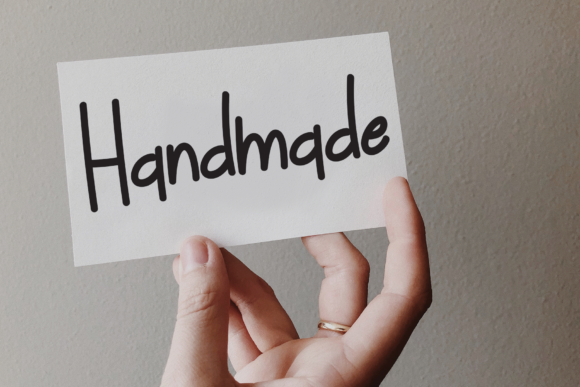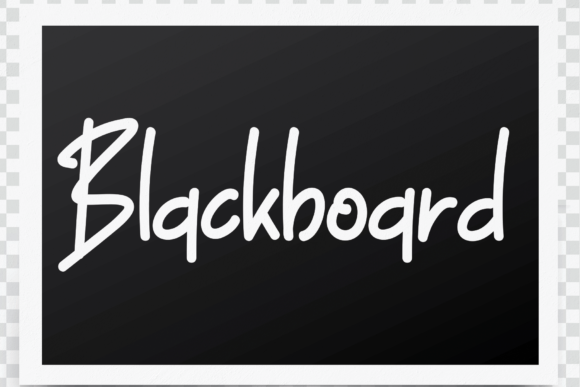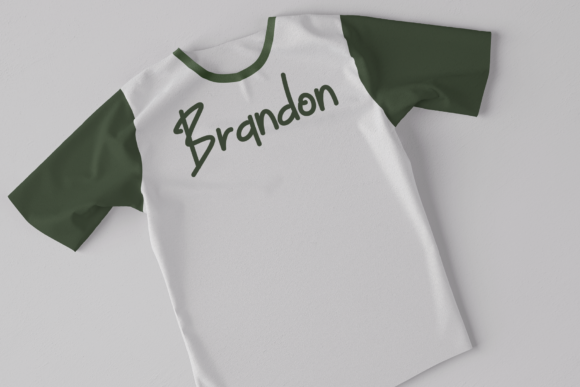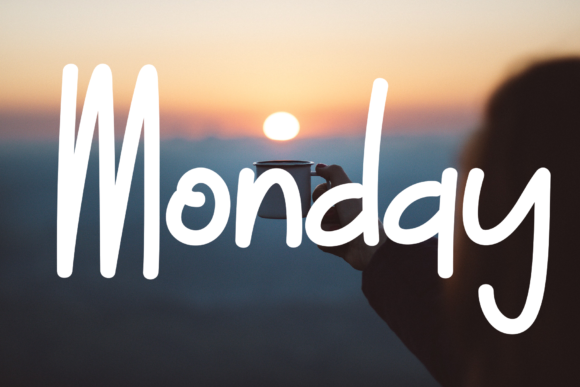
Introducing Bluebird Font: Elevate Your Designs with a Touch of Elegance
Are you on the hunt for a font that exudes elegance, uniqueness, and adaptability? Look no further than the Bluebird Font. This casual, yet sophisticated handwritten font is perfect for designers and crafters seeking to add a personal touch to their projects. In this article, we’ll dive into the world of Bluebird Font, exploring its features, uses, and benefits.
What is Bluebird Font?
Bluebird Font is a beautifully crafted handwritten font, designed to bring a touch of whimsy and charm to your designs. Its casual and unique style makes it an excellent choice for a wide range of projects, from wedding invitations and business cards to greeting cards, social media posts, and wall art.
Key Features of Bluebird Font
- Handwritten elegance: Bluebird Font boasts a beautiful, handwritten style that adds a personal touch to any design.
- Adaptable: This font is versatile and can be used for various projects, from formal events to casual social media posts.
- Unique: The Bluebird Font’s distinct style sets it apart from other fonts, ensuring your designs stand out.
- Elegant: The font’s elegant feel makes it perfect for designs that require a touch of sophistication.
Uses of Bluebird Font
The Bluebird Font’s versatility makes it an excellent choice for a wide range of projects, including:
- Wedding invitations: Add a touch of elegance and romance to your wedding invitations with Bluebird Font.
- Business cards: Create professional and stylish business cards that showcase your brand’s personality.
- Greeting cards: Design beautiful and heartfelt greeting cards for special occasions.
- Social media posts: Elevate your social media presence with eye-catching posts that feature the Bluebird Font.
- Wall art: Create stunning wall art pieces that add a personal touch to any room.
Benefits of Using Bluebird Font
By incorporating Bluebird Font into your designs, you’ll enjoy several benefits, including:
- Enhanced visual appeal: The font’s unique and elegant style will make your designs stand out.
- Increased engagement: The personal touch of the Bluebird Font will help you connect with your audience on a deeper level.
- Time-saving: The font’s adaptability means you can use it for multiple projects, saving you time and effort.
- Professional results: Achieve professional-looking results without extensive design experience.
Tips for Using Bluebird Font
To get the most out of the Bluebird Font, follow these tips:
- Experiment with colors: Pair the font with a range of colors to create unique and eye-catching designs.
- Mix and match: Combine Bluebird Font with other fonts to create visually appealing contrast.
- Play with sizes: Use different font sizes to add emphasis and create visual hierarchy.
In conclusion, the Bluebird Font is a versatile and elegant handwritten font perfect for designers and crafters seeking to add a personal touch to their projects. Its adaptability, unique style, and elegant feel make it an excellent choice for a wide range of designs. By incorporating Bluebird Font into your workflow, you’ll enjoy enhanced visual appeal, increased engagement, and professional results. So why wait? Discover the world of Bluebird Font and elevate your designs to new heights.